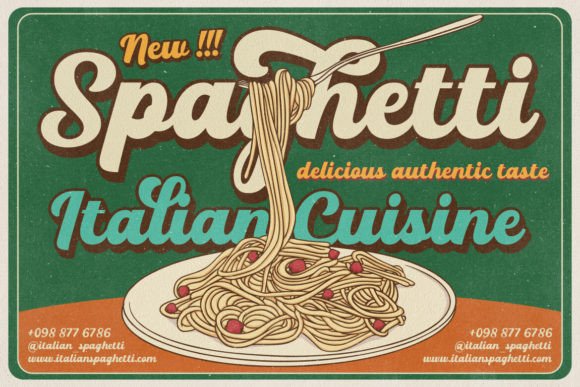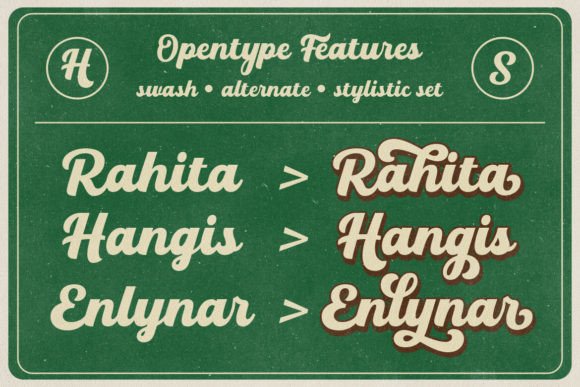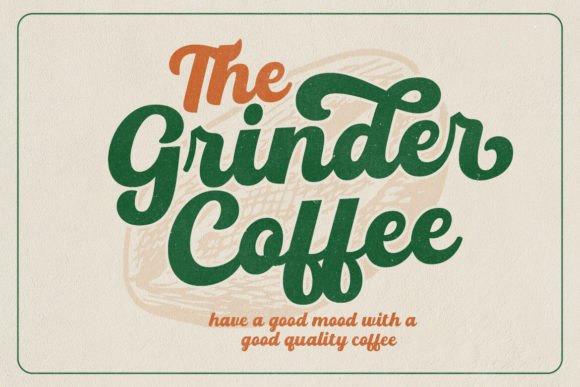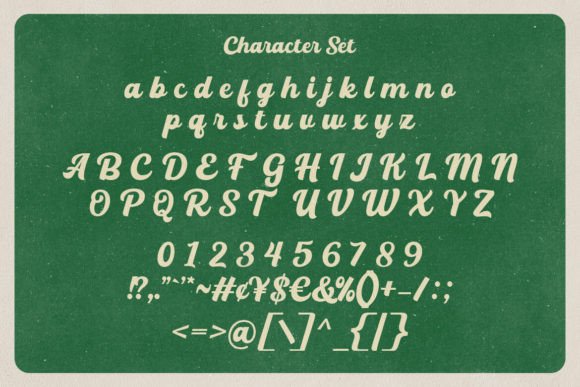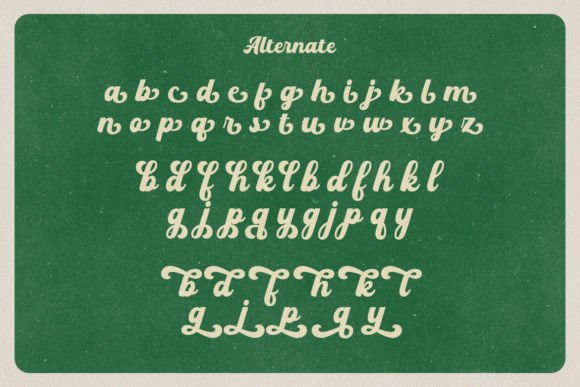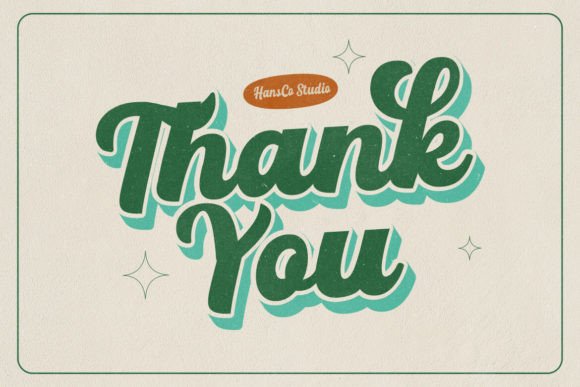
Introduction to Hadenut Font
Hadenut Font is a lettering retro vintage font.
You will get alternate characters such as swash on some characters Equipped with all complete characters ranging from uppercase letters, lowercase letters, numbers, punctuation marks and multi-lingual support, this font is ready to be used in any project.
Key Features of Hadenut Font